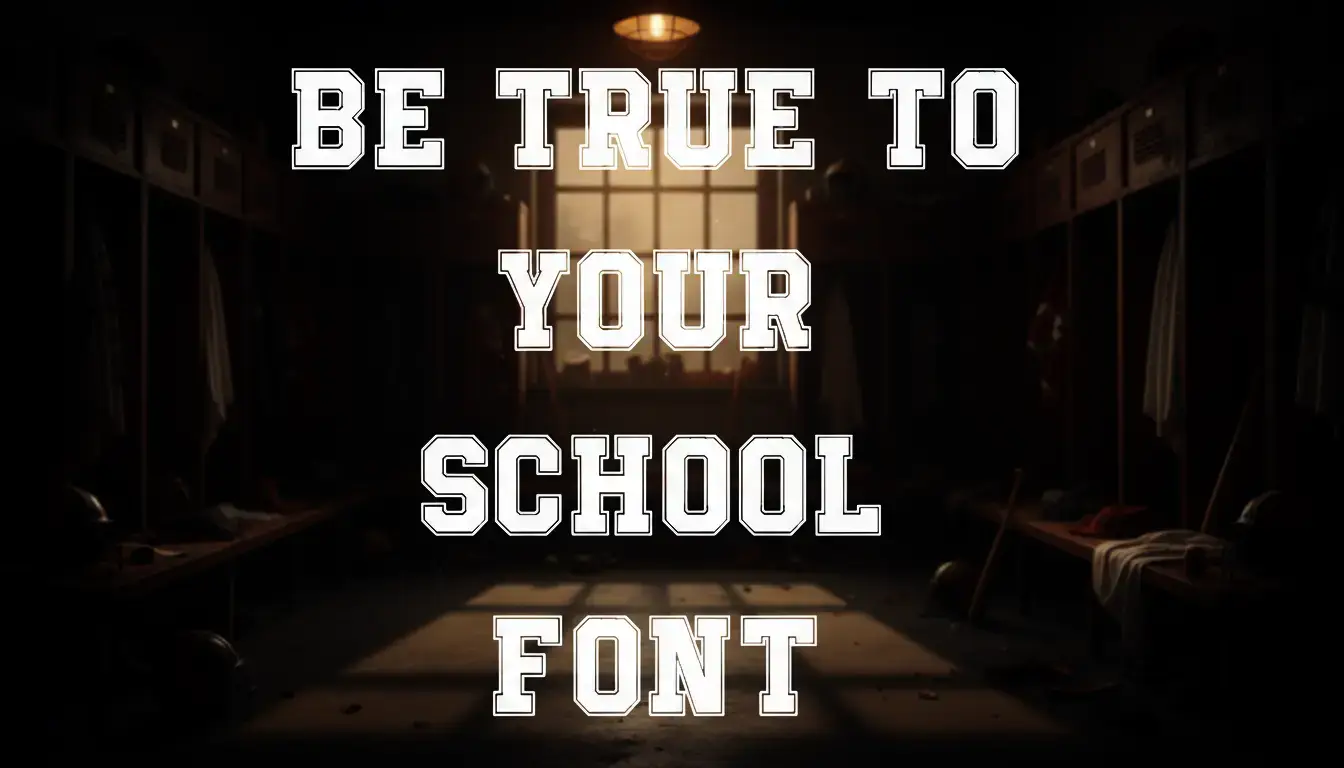
Be True To Your School Font
Be True To Your School is a fancy font created by HENRIavecunK. Bold and full of character, it's built to stand out rather than blend in. You can download it for free and test it with your own words in the preview above.
Be True To Your School covers the full alphabet in upper and lowercase, plus all ten numbers, so you can set names, dates and prices without switching fonts. Common punctuation such as &, !, ? and @ is included as well. It also has the accented letters you need for Spanish, French, Portuguese and Italian.
Designers usually reach for fonts like Be True To Your School when they're making posters, logos and eye-catching headlines. Use it for one standout word or headline and let simpler fonts handle the rest.
Yes. Be True To Your School includes the accented letters needed for Spanish, French, Portuguese and Italian, so it works for more than just English.